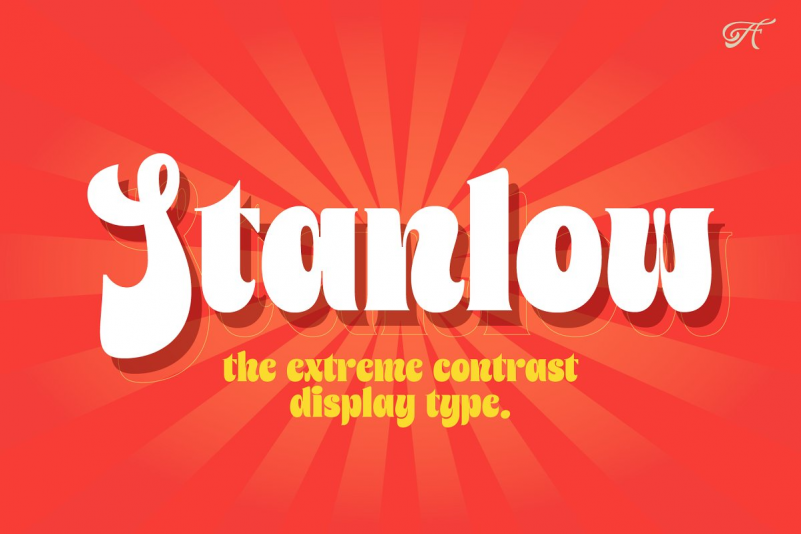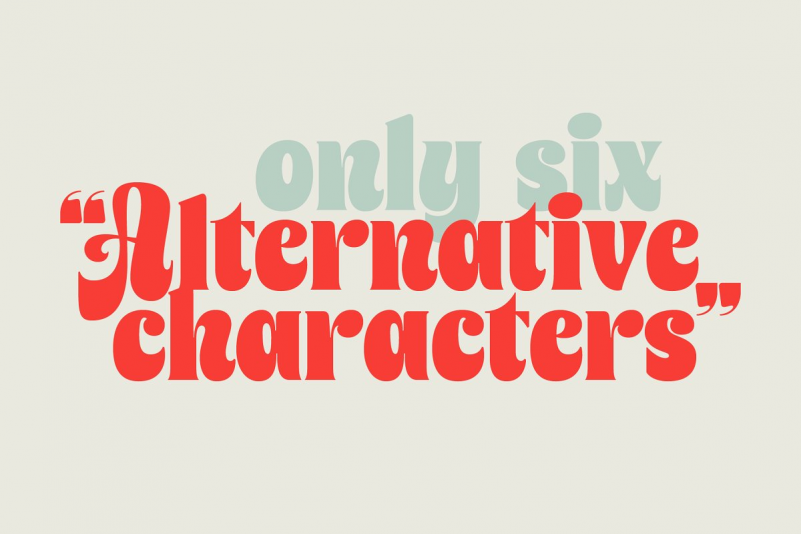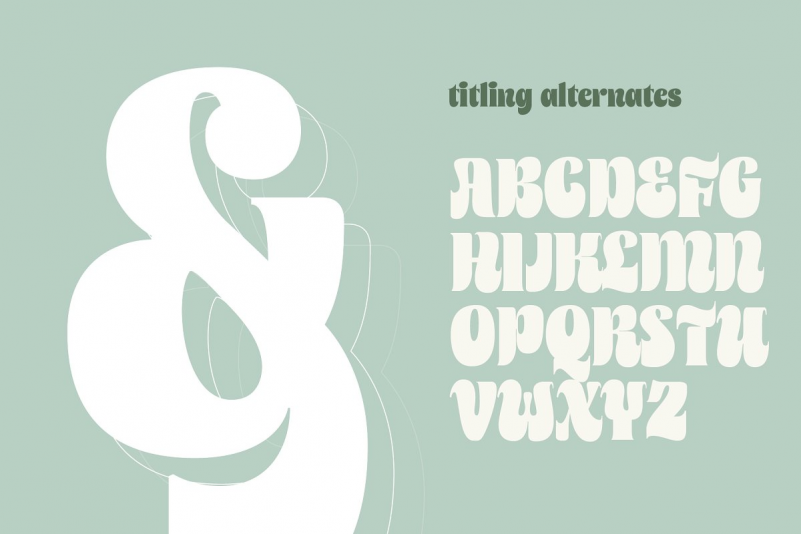
Stanlow Font
Since a Retro-ish style are never dies. I decided to create a fonts with a curvy 70’s style with modern look. An experimental to create a super contrast fonts in a very precise weight. A Bold fonts combined with ultra thin curves made this fonts are stand out for a display fonts, headlines, posters, logo, clothing, branding, etc.